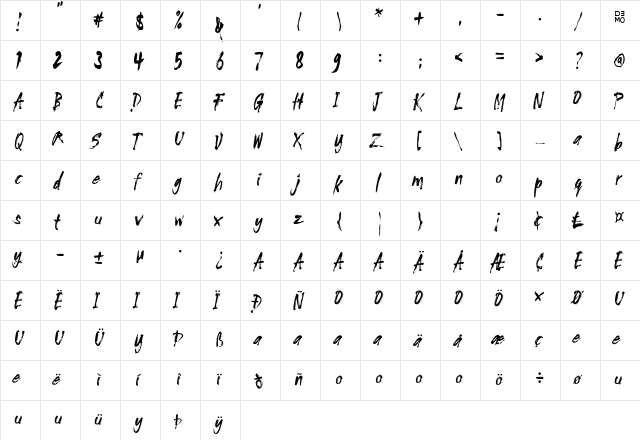
COZYBRUSH_Demo Regular
Design Context for COZYBRUSH_Demo Typeface
COZYBRUSH_Demo flows with the natural rhythm of handwritten lettering, making it ideal for designs that call for warmth and personal expression.
Font Pairing: Combine COZYBRUSH_Demo with a simple geometric sans for maximum contrast — the tension between flowing curves and clean structure is a classic typographic pairing.
Pro Tip: Use COZYBRUSH_Demo for short runs of text — names, titles, or taglines. Extended body copy in script faces tires the eye quickly.